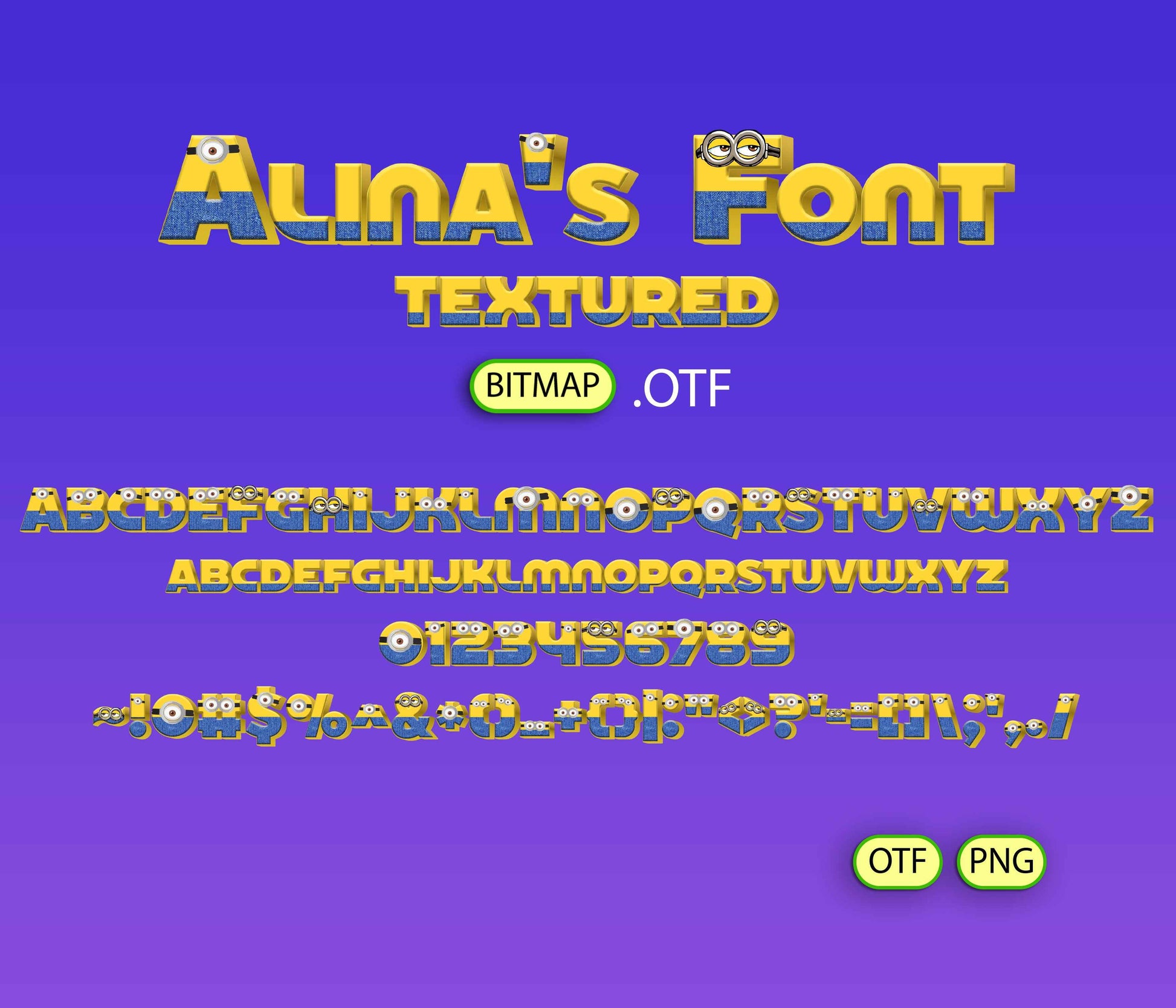
Cheerful Helpers Font Textured
Are you looking for a cute and funny font to spice up your designs? Do you love those adorable yellow helpers and their hilarious antics? If so, you will love Cheerful Helpers Font, a colored font inspired by those lovable minion-like characters!
Cheerful Helpers Font is a unique and creative font that captures the personality of those mischievous little assistants. It has a fun and quirky style that is perfect for creating t-shirts, mugs, posters, stickers, invitations and more. You can use Cheerful Helpers Font to add some playful humor to your projects and impress your friends and customers.
- Creating fun party decorations
- Designing quirky greeting cards
- Making eye-catching social media posts
- Personalizing children's room decor
- Crafting unique gift tags
- Developing playful educational materials
- Designing animated-style logos
- Creating cheerful website headers
- Crafting memorable event invitations
- Adding character to DIY craft projects
Whether you're a fan of those yellow helpers or simply love whimsical designs, this font offers a unique way to bring a touch of animated fun to your creative projects.